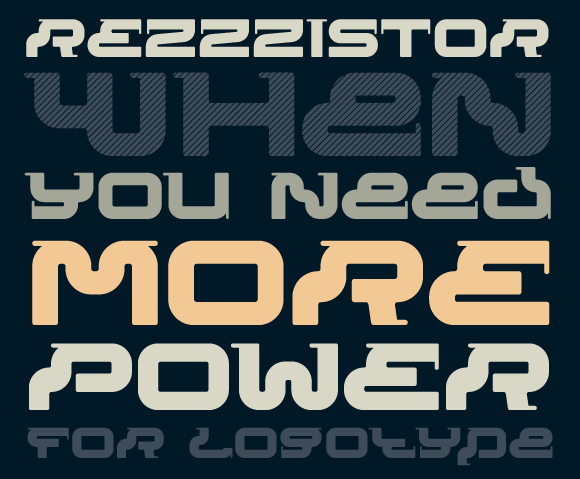
Modular font Rezzzistor
On MyFonts published modular font Rezzzistor. Best for logotypes and promo posters in techno style. Number of glyphs covers Basic Latin with Accents and Cyrillic.